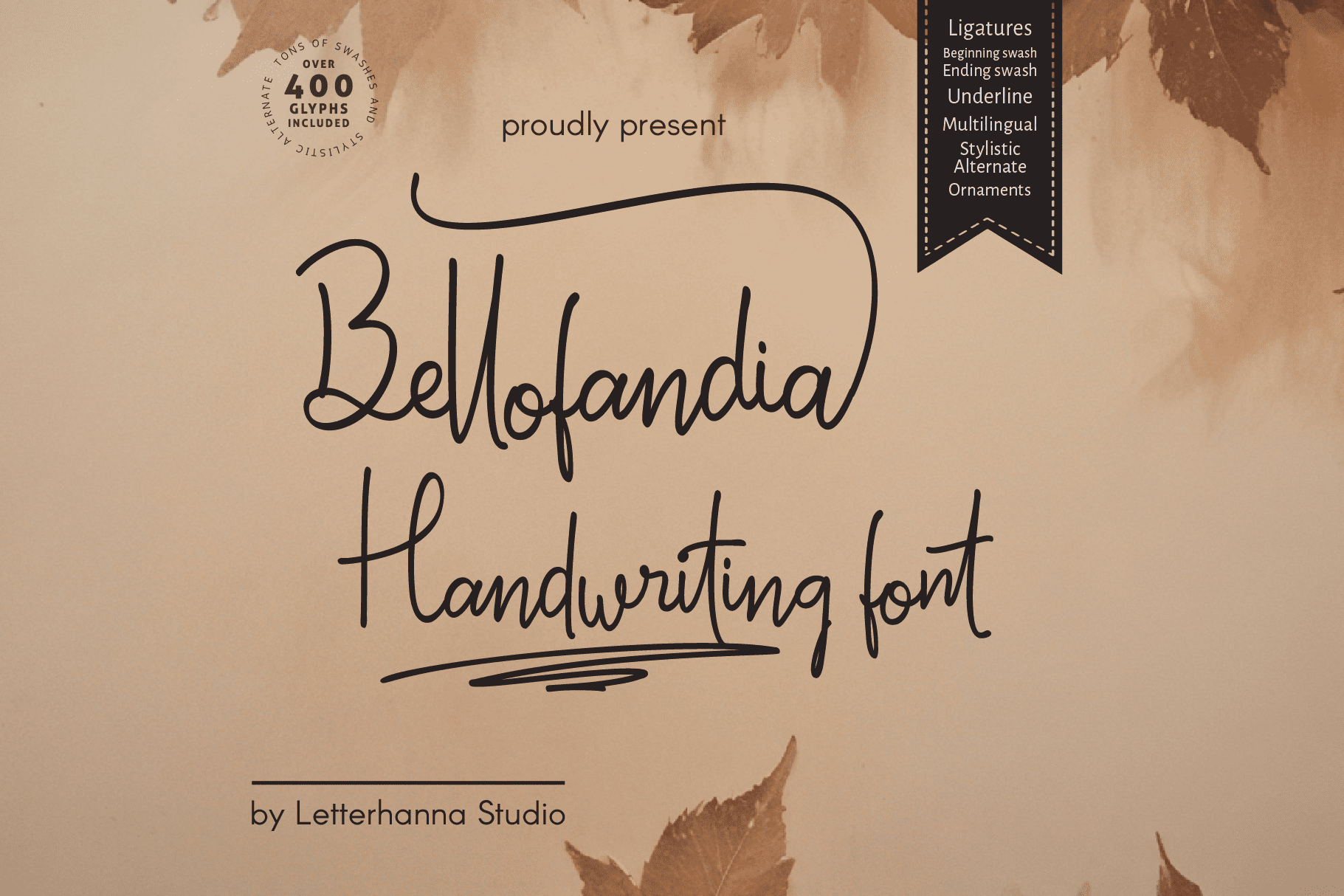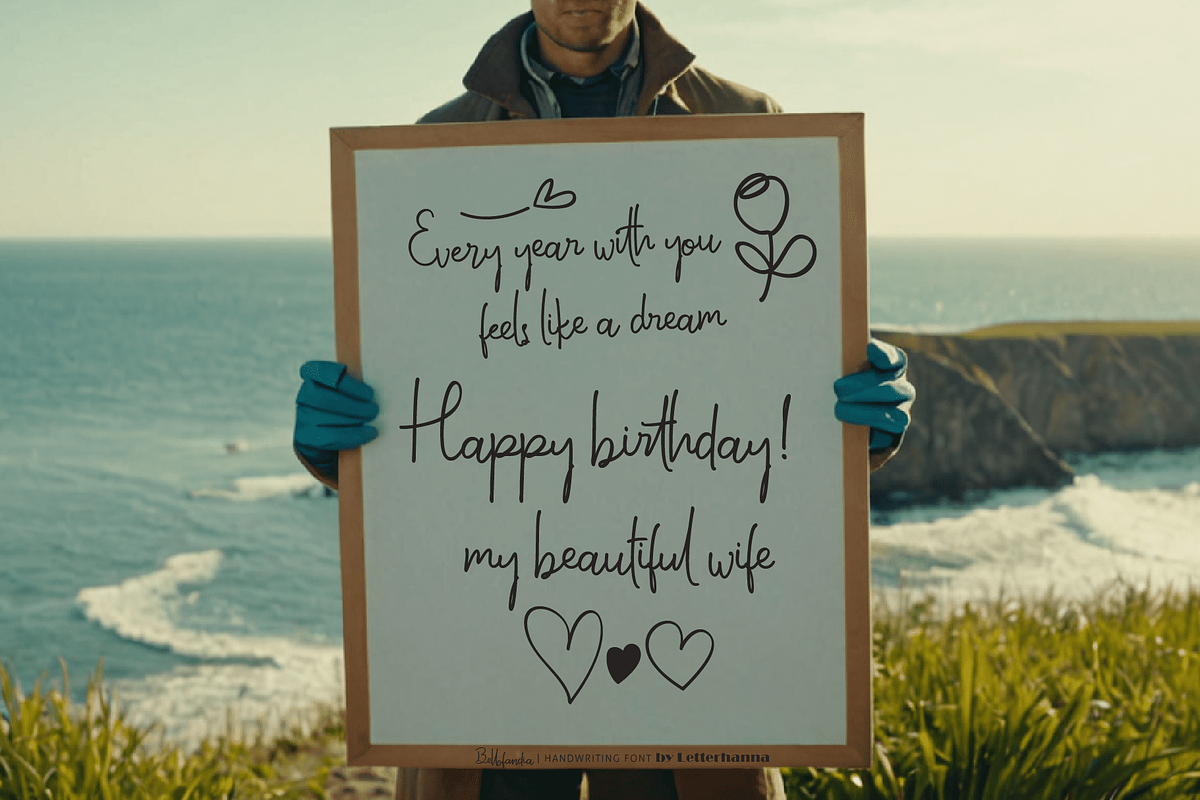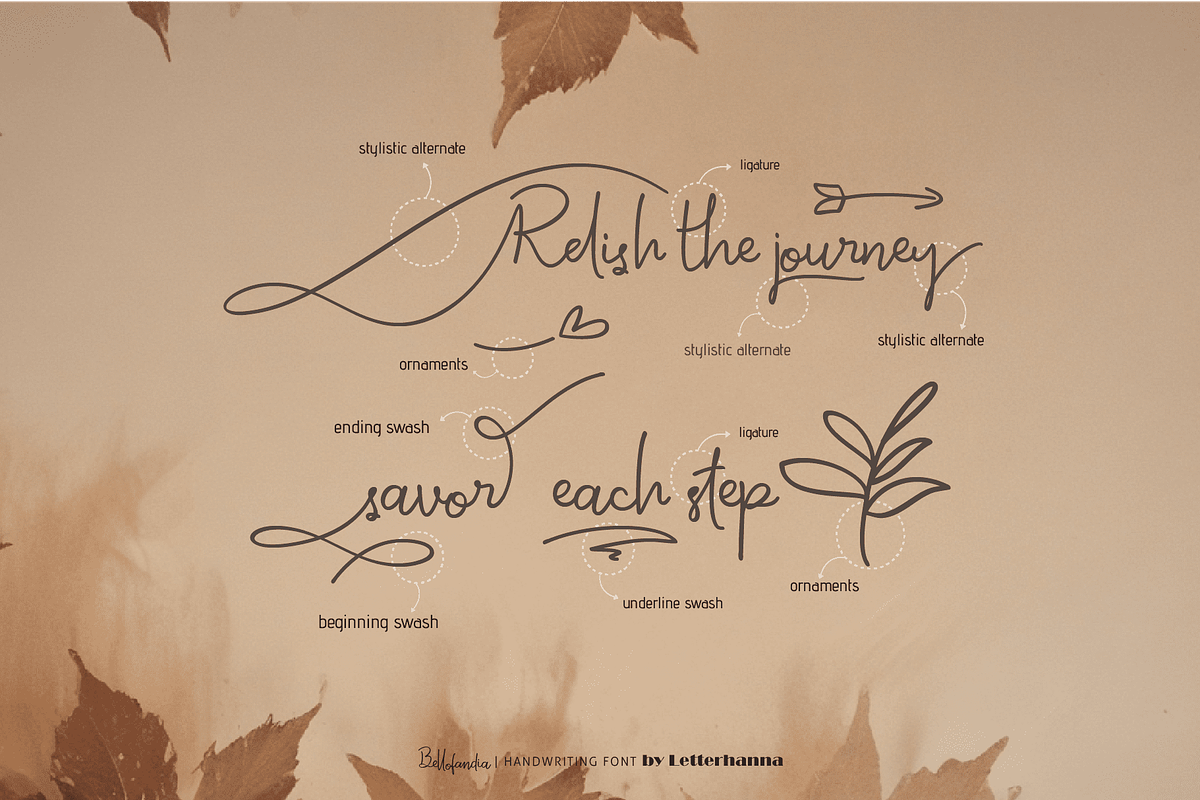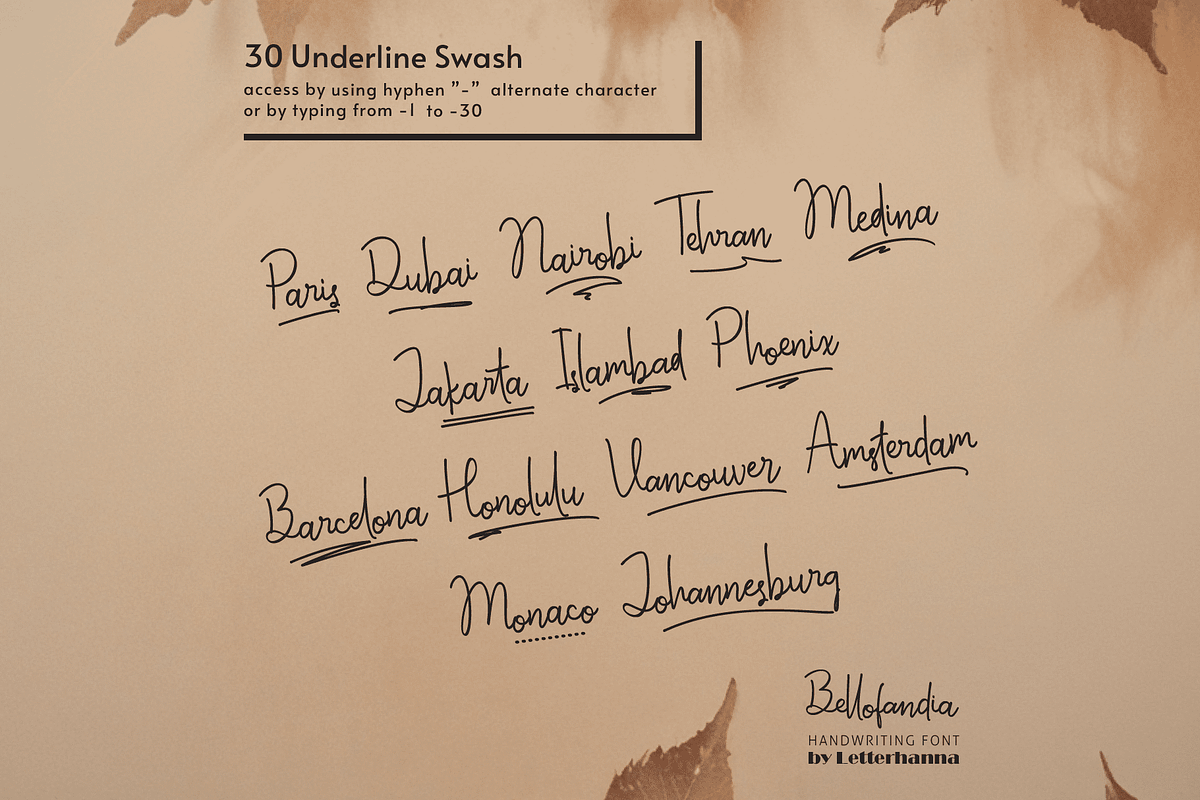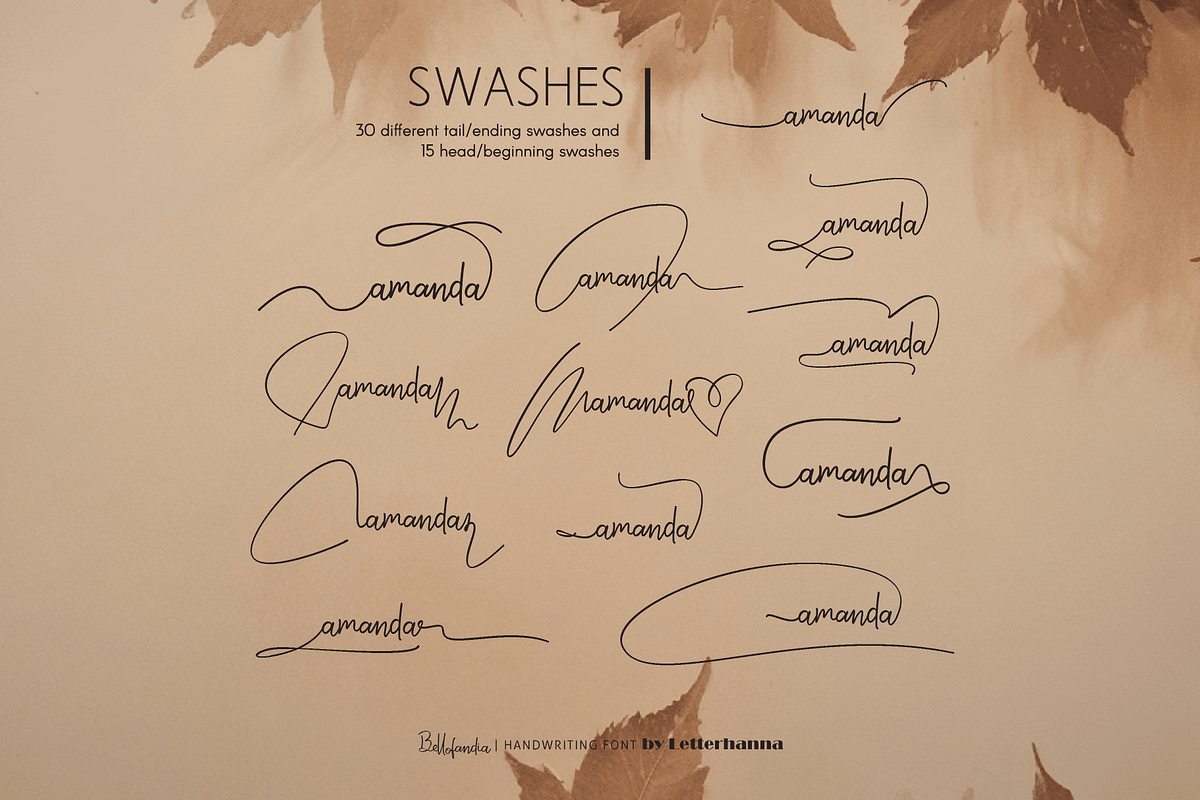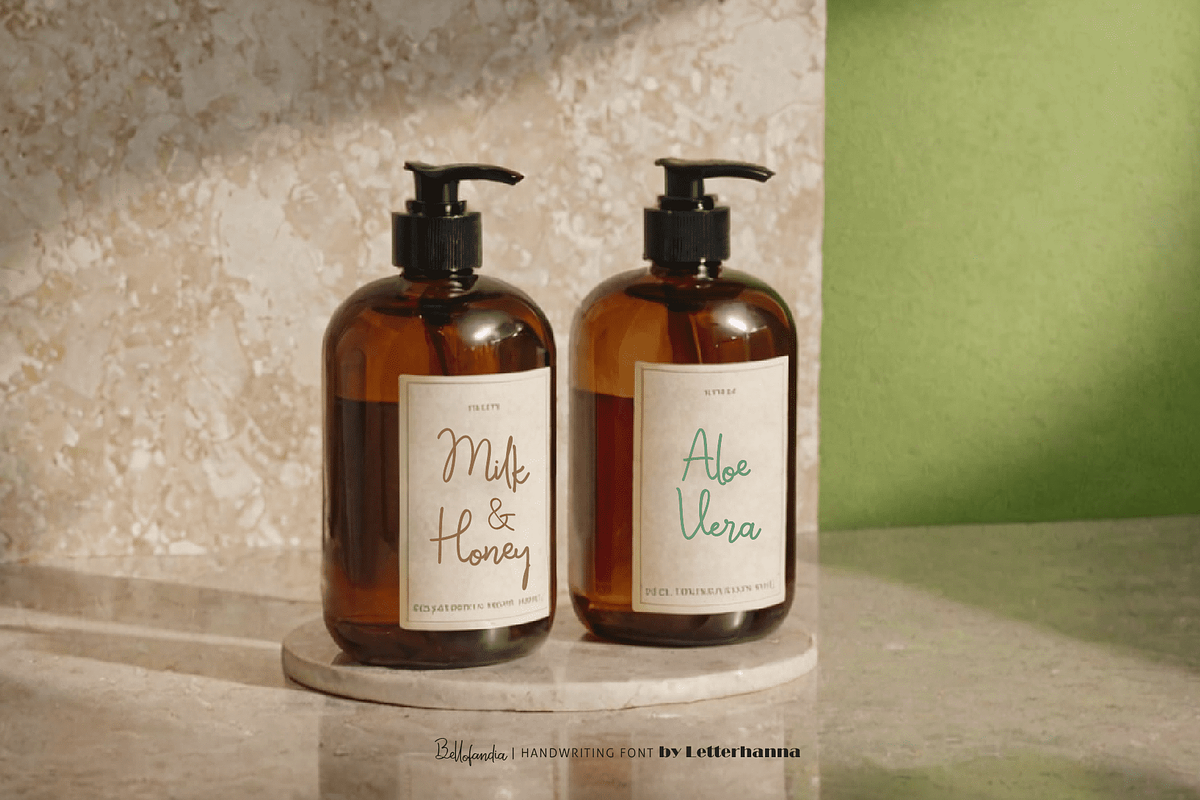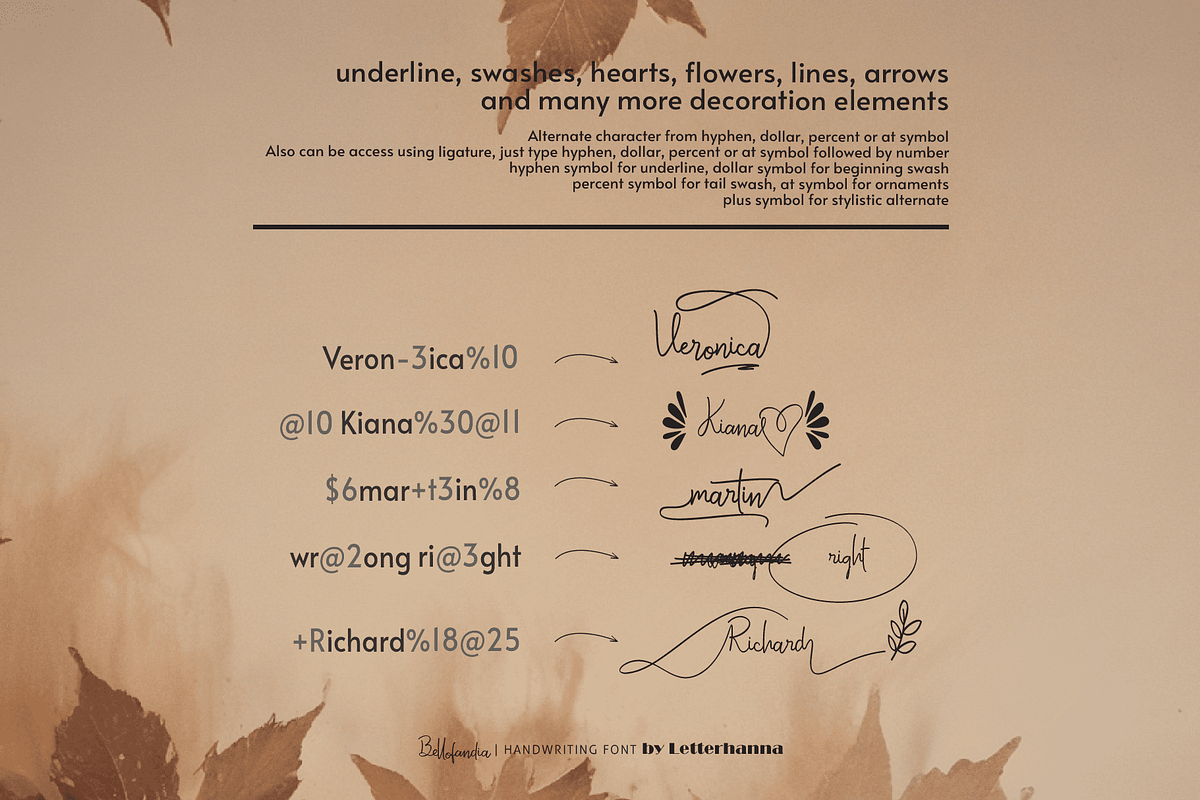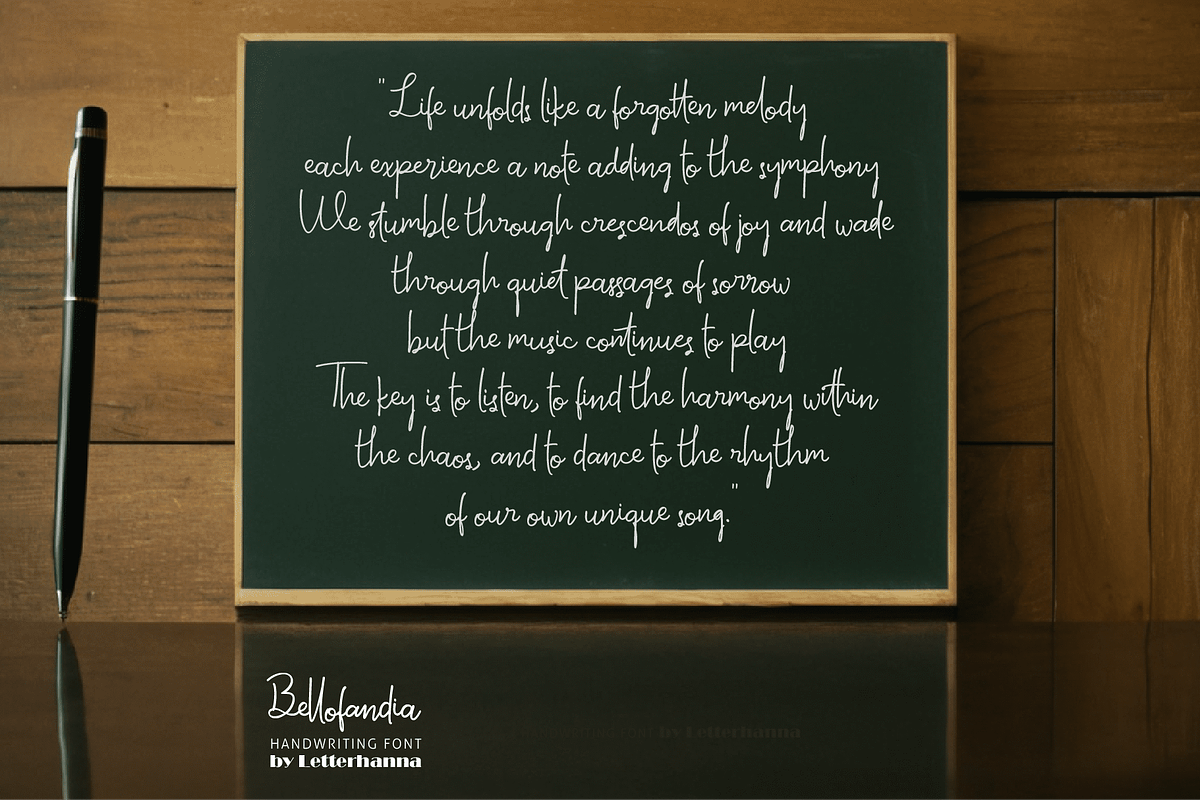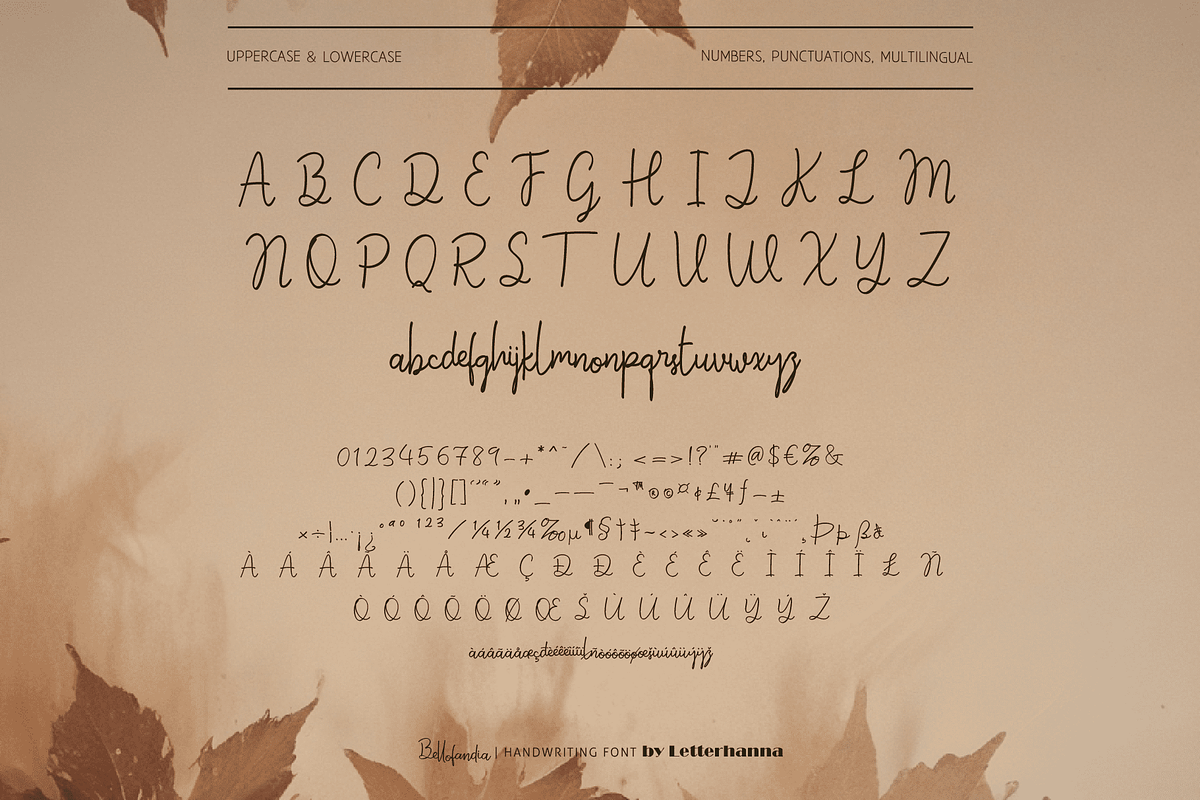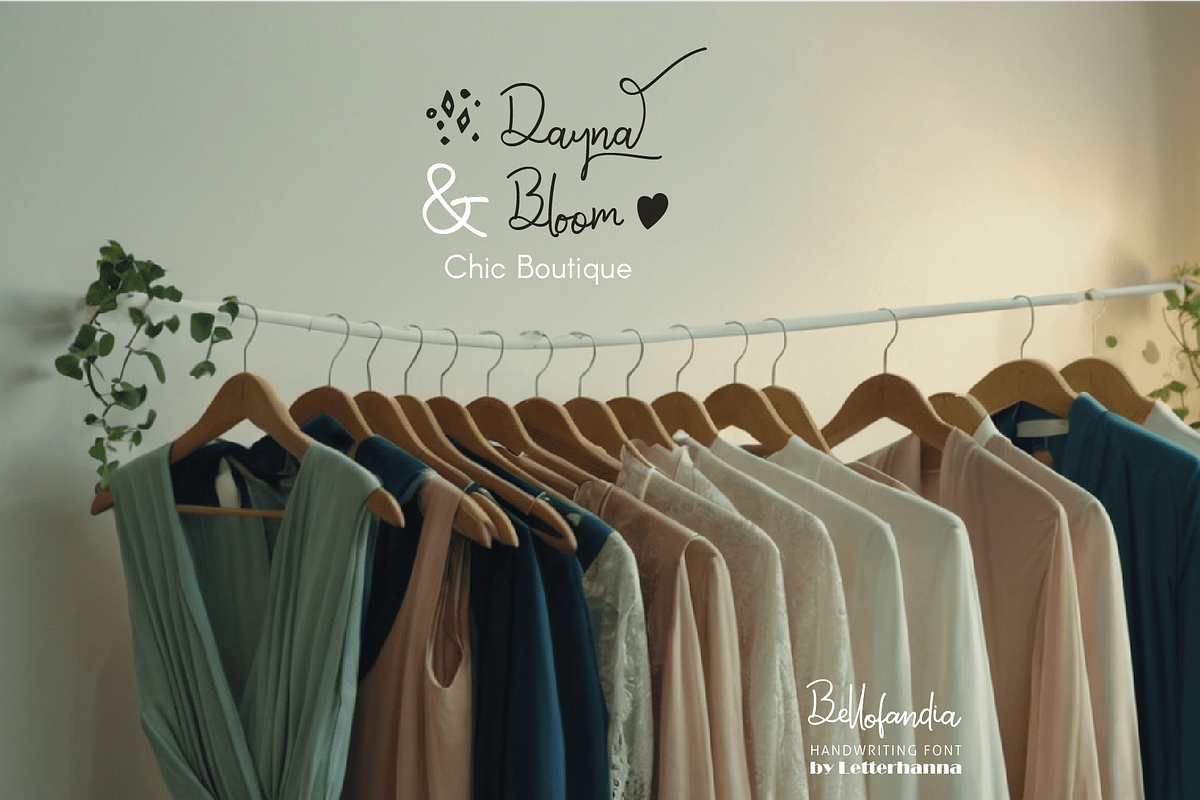
Bellofandia Font
Unleash your inner storyteller with Bellofandia, a captivating new handwriting script font. Inspired by the elegance of calligraphy and infused with a touch of whimsical charm, Bellofandia dances across your designs with effortless grace.
Crafted for handwritten notes, wedding invitations, and creative projects that demand a touch of personality, Bellofandia's flowing lines and playful flourishes add a touch of magic to your words. Let your creativity bloom and compose narratives that capture the imagination with Bellofandia.
Easy Access to Glyphs and Swashes
Accessing Stylistic Alternates
Stylistic alternates can be accessed by typing a plus symbol "+" in front of the original letter. For example, type "+a" to get the stylistic alternate of the letter a.
Accessing Swashes and Ornaments
Underline Swashes: Use a hyphen symbol "-" followed by a number between 1 and 30. For example, type "-3", "-22", or "-17" to get various underline swashes.
Head/Beginning Swashes: Use a dollar sign "$" followed by a number between 1 and 9. For example, type "$2" or "$8" to get different head/beginning swashes.
Tail/Ending Swashes: Use a percent sign "%" followed by a number between 1 and 30. For example, type "%3" or "%15" to get various tail/ending swashes.
Ornaments: Use an "at" symbol "@" followed by a number between 1 and 26. For example, type "@4" or "@13" to get different ornaments.
Uppercase and lowercase letters
Numbers and punctuation marks
Beginning and ending swashes
Underline swashes
Stylistic alternates
Ornaments
Easy access to swashes using ligatures